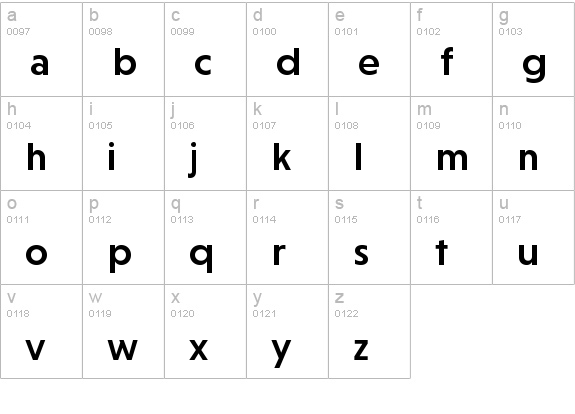
Niveau Grotesk Medium is a balanced, medium-weight variant in the Niveau typeface family \xE2\x80\x94 well suited to sub-headlines, navigation, and balanced editorial work.
Niveau Grotesk Medium font strikes the perfect balance between modernity and classic elegance. Its clean lines and geometric shapes exude a sense of sophistication, making it ideal for a wide range of design projects. This versatile typeface is both stylish and highly legible, making it suitable for both display and text use. What sets Niveau Grotesk Medium apart is that it is available for free download at FontsMarket.com. This means that designers and creatives can access this premium-quality font without any cost, making it a valuable addition to any font library. Whether you're working on branding, editorial design, web design, or any other project, Niveau Grotesk Medium offers a timeless appeal that is sure to elevate your work to the next level.